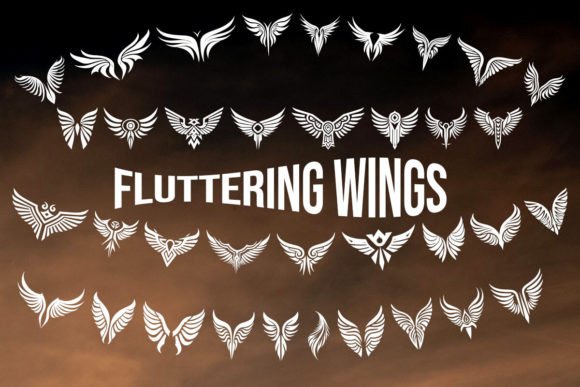
🦋 Fluttering Wings Dingbats Font Collection: Unlock the Elegance and Wonder of Winged Creation
Journey into a realm of enchantment and creativity with the Fluttering Wings Dingbats Font Collection, a captivating ensemble of 36 exquisite dingbat designs inspired by the delicate beauty of fluttering wings. Each font is a masterpiece, crafted with meticulous care and attention to detail, capturing the essence of flight and transforming it into digital art.
🌟Ethereal Beauty at Your Fingertips:
Adorned with intricate wing patterns, the Fluttering Wings fonts add an aura of elegance to any design. From social media posts to logos, invitations to digital artwork, these fonts bring a touch of magic to your creations. Unleash your imagination and let the beauty of fluttering wings elevate your designs to new heights.
✨Artistic Expression Like Never Before:
With a versatile range of symbols, the Fluttering Wings collection empowers you to express your creativity in countless ways. Capture the enchanting motion of wings in flight, adding a touch of whimsy and wonder to your designs. Embark on a journey of artistic exploration, letting your imagination soar on the wings of creativity.
🌟Elevate Your Design Game:
The Fluttering Wings Dingbats Collection is the perfect companion for designers and creatives seeking to elevate their design game. From intricate logos to eye-catching social media posts, these fonts add a touch of uniqueness and sophistication to any project. Embrace the artistry of fluttering wings and soar above the ordinary, leaving a lasting impression with every design.
🌟Immerse Yourself in Enchantment:
The Fluttering Wings Dingbats Collection is an invitation to immerse yourself in a world of enchantment and wonder. With each font, you'll discover a new dimension of creativity, unlocking the potential for truly captivating designs. Prepare to be captivated by the beauty of fluttering wings and let your imagination take flight.
🌟Step into the Realm of Fluttering Wings:
Experience the magic of Fluttering Wings Dingbats Fonts today. Dive into a world of elegance, wonder, and artistic expression. Transform your designs into masterpieces of creativity, infused with the ethereal beauty of fluttering wings. Embark on this artistic journey and let your imagination soar!